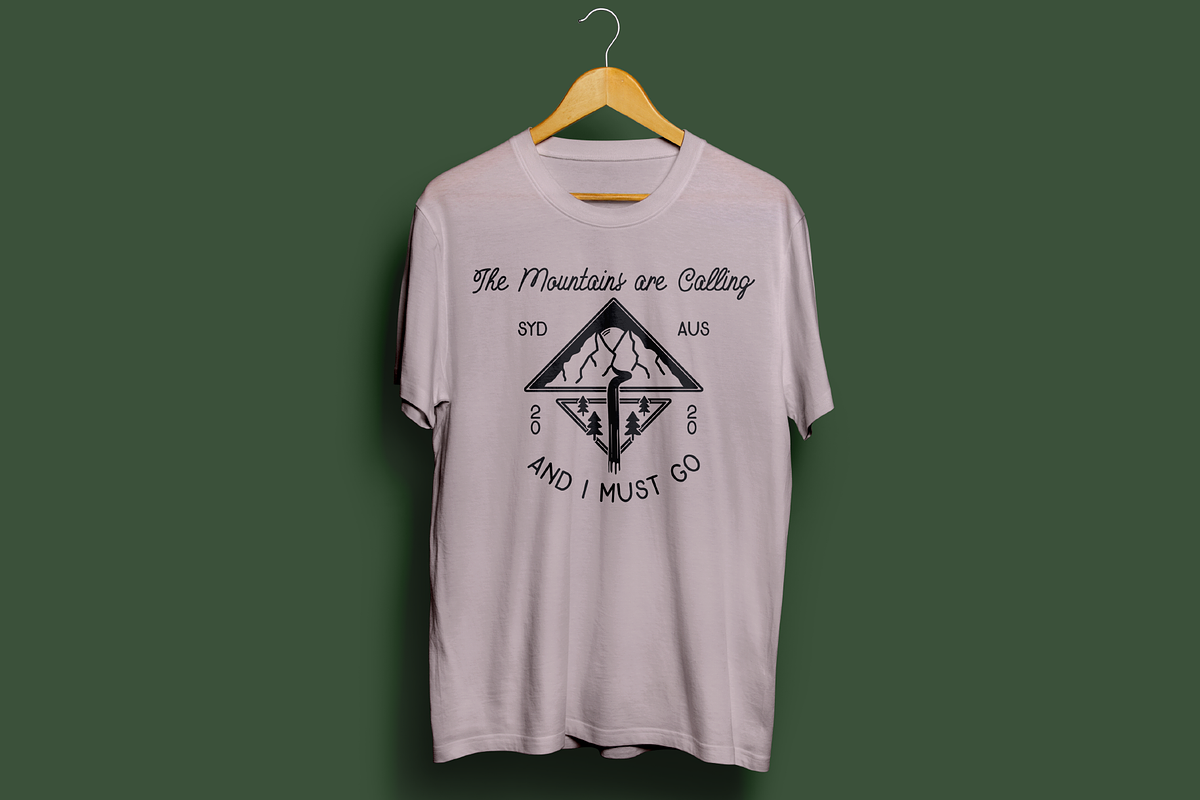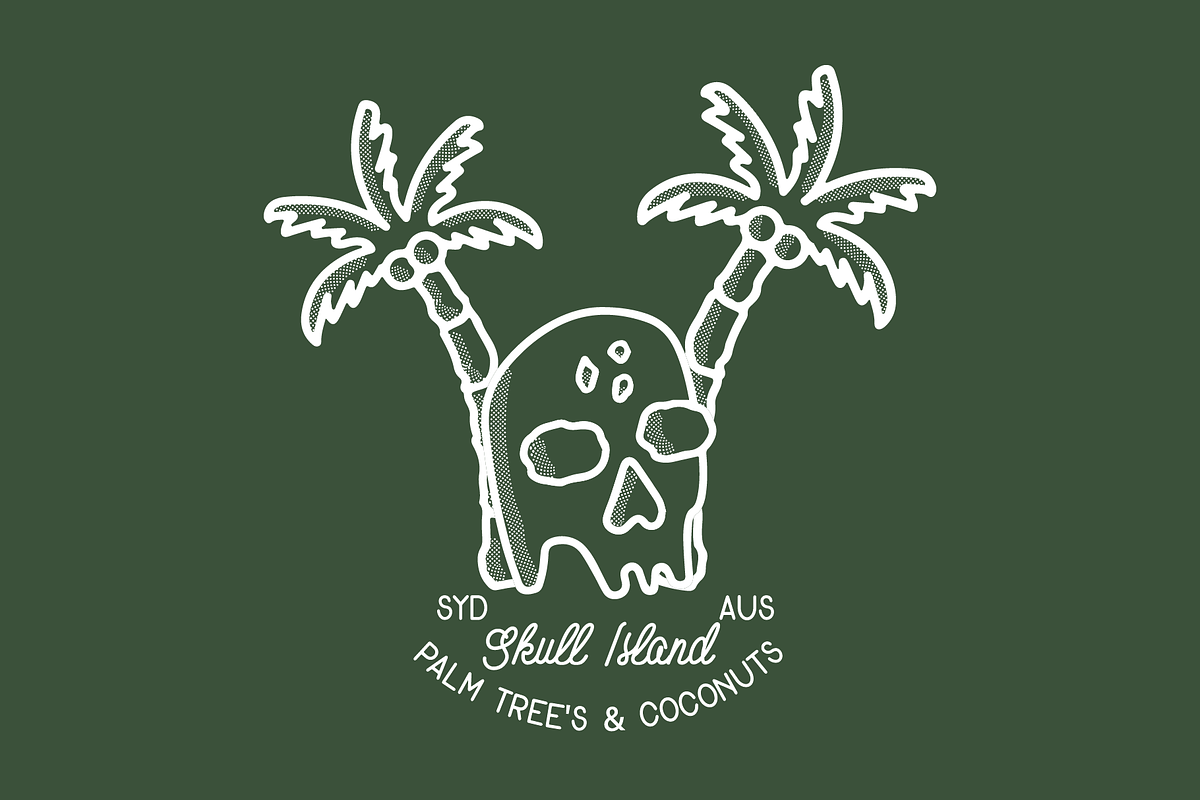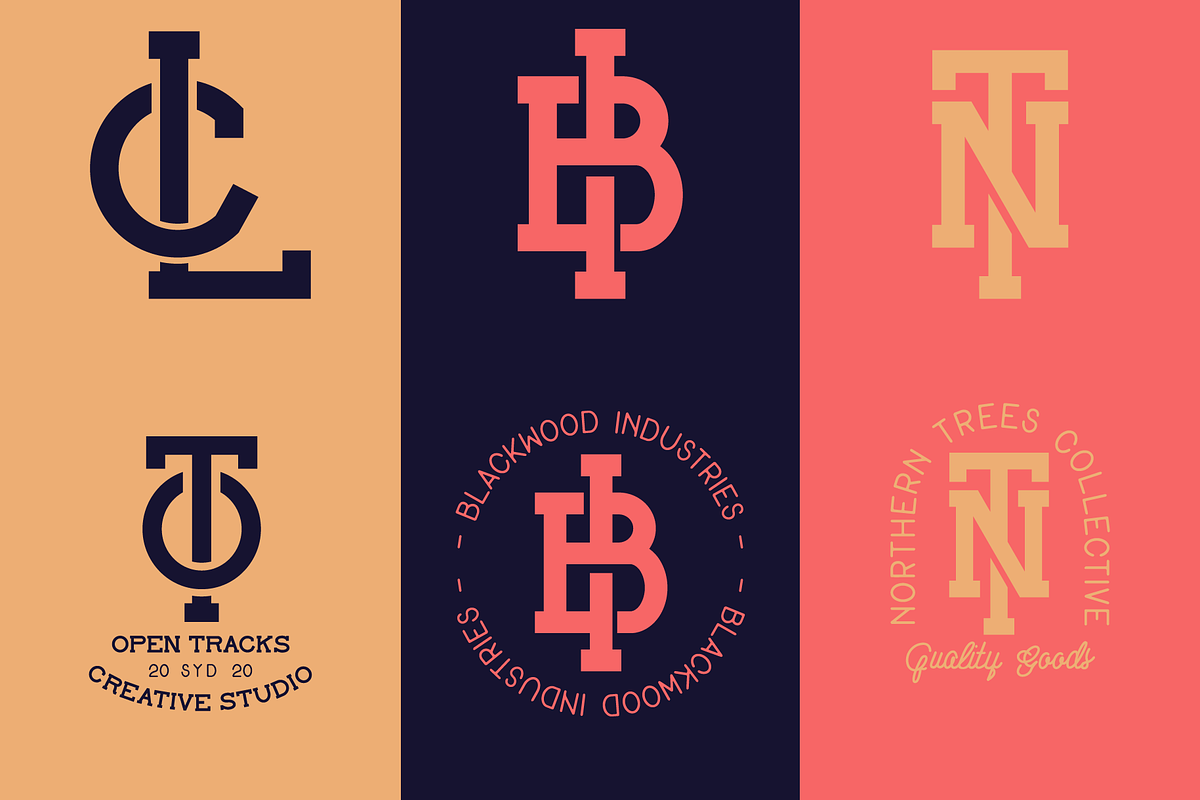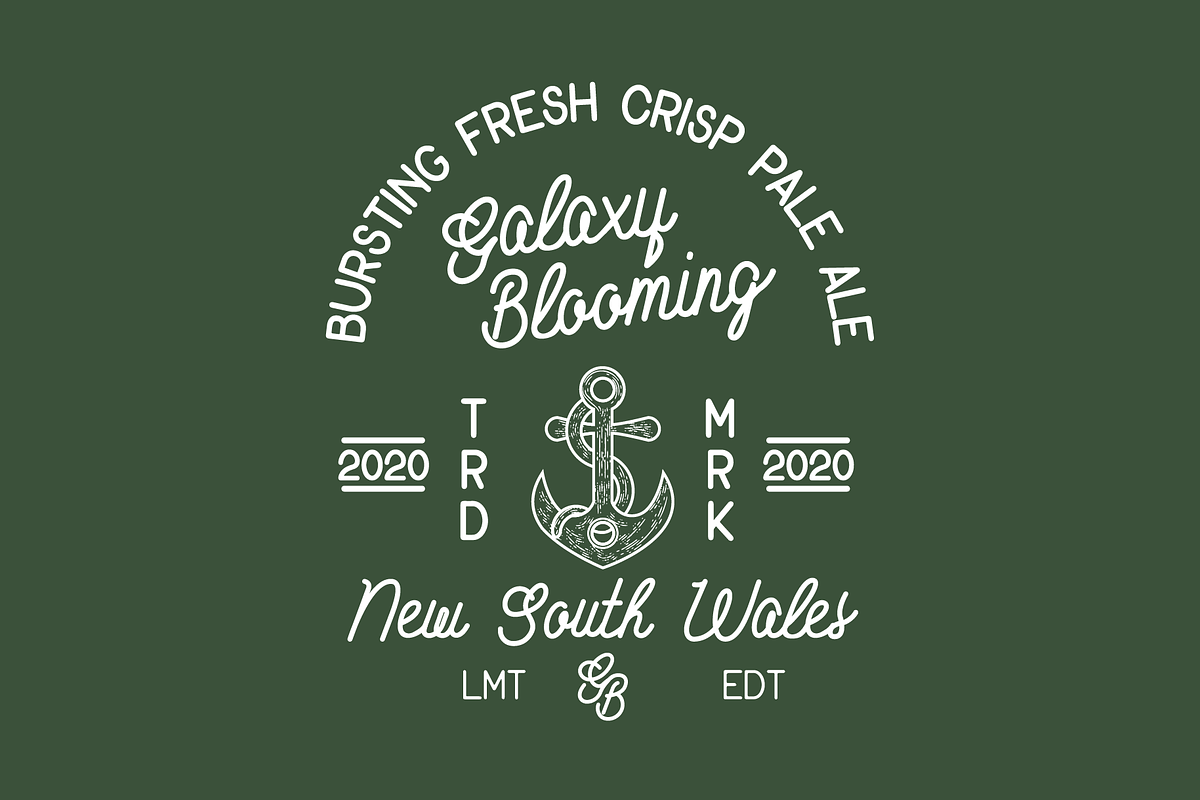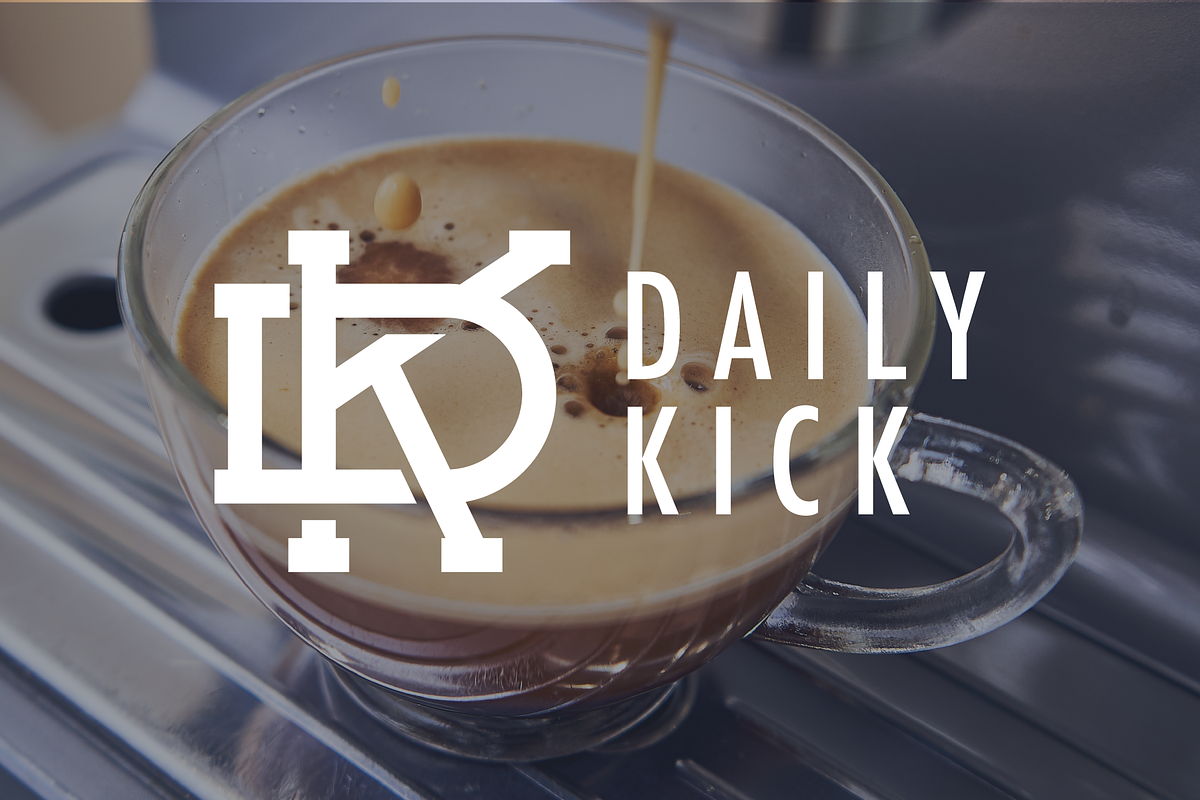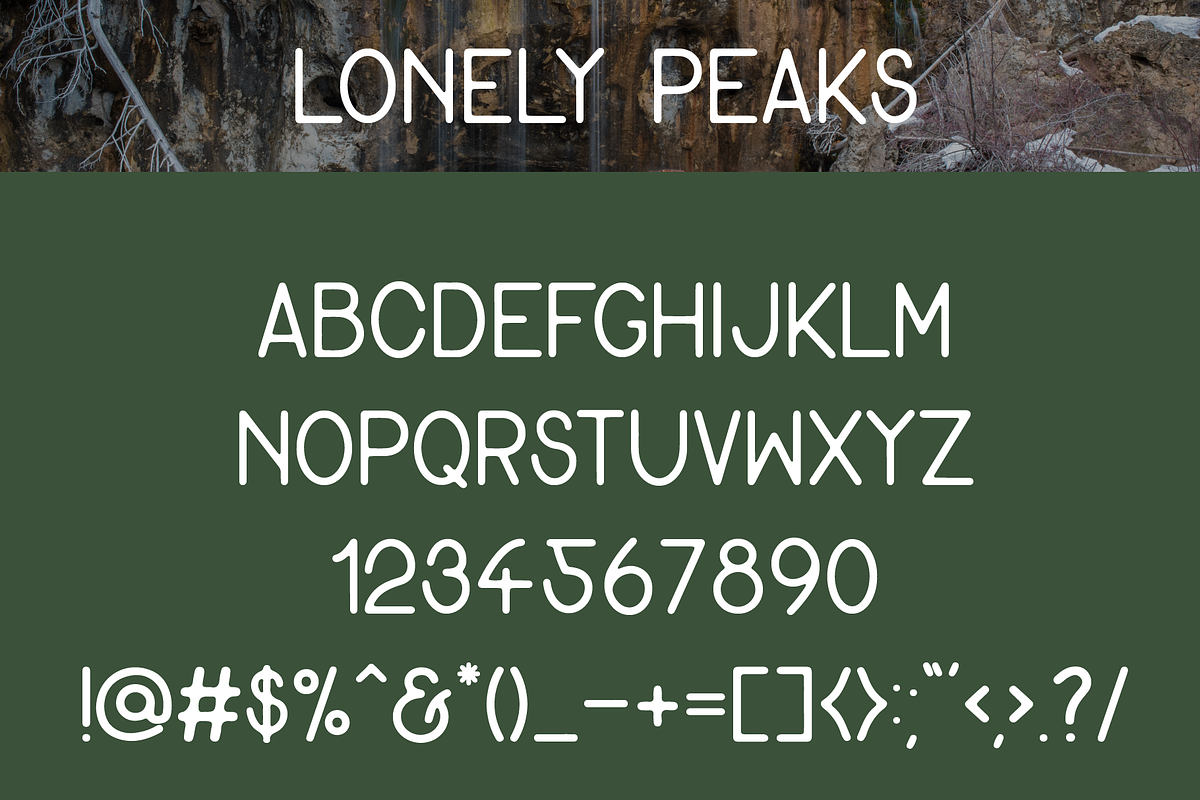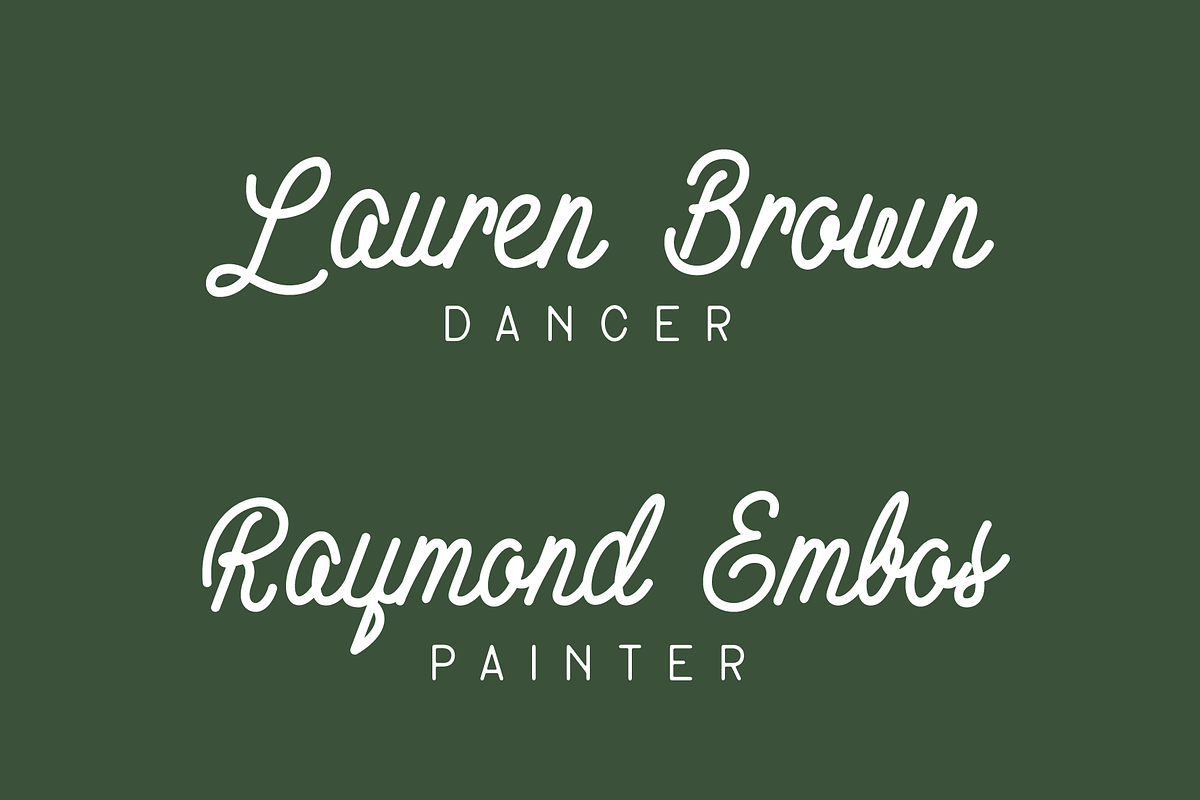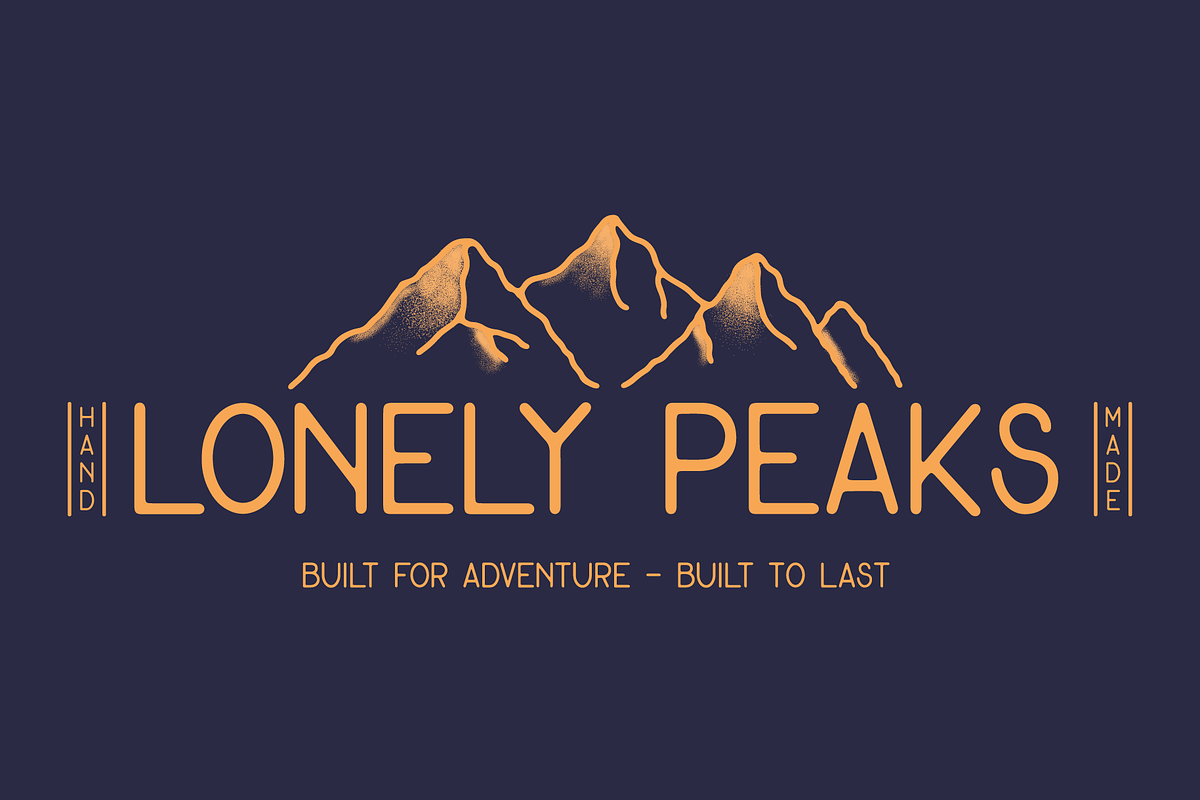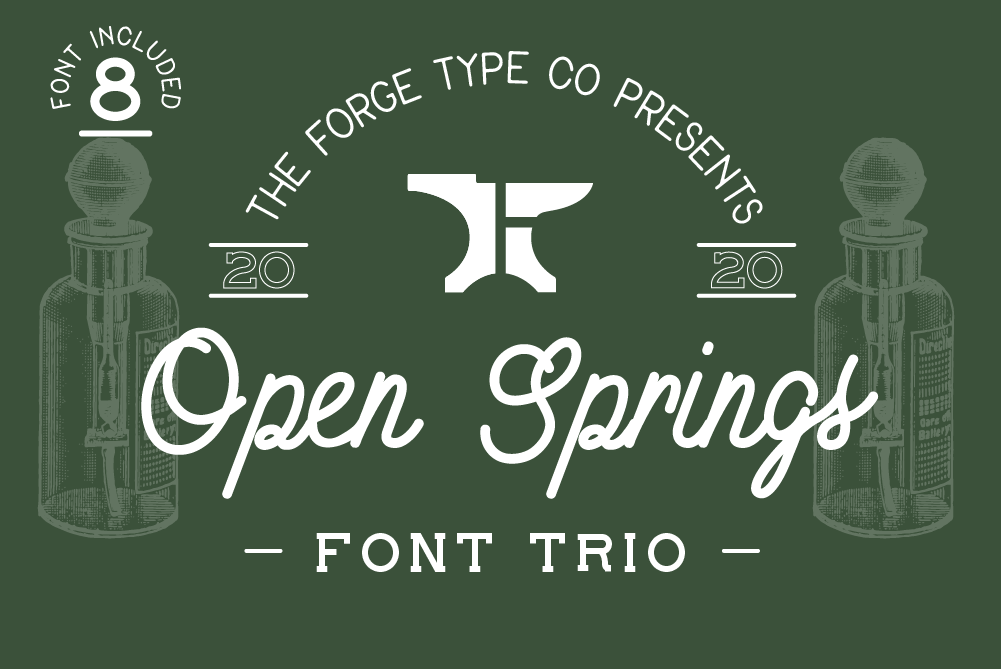
Open Springs - Font Trio
Introducing Open Springs - A Font Trio
Have you ever dreamt of finding the perfect combination of fonts for every project? Look no further - the Open Springs font trio has everything you need!
A whimsical script paired with bold and boxy serif, plus a simple-yet-versatile San-Serif to tie everything together. Each handcrafted font works beautifully as a stand-alone, or use them together for seamless font creations. Each style has also been developed to help you create unique monograms and logotypes.
Open Springs Font Trio includes:
- Open Springs - A smooth cursive monoline with unique capital flourishes for every letter.
- Dark Valley - A bold, sturdy Serif font, designed for monogramming
- Lonely Peaks - An all-rounder, minimalist San-Serif
All fonts are available in multiple textures including regular, rough and inky, so you can always find the right look for your project!